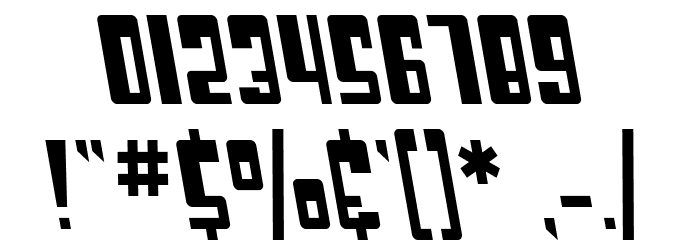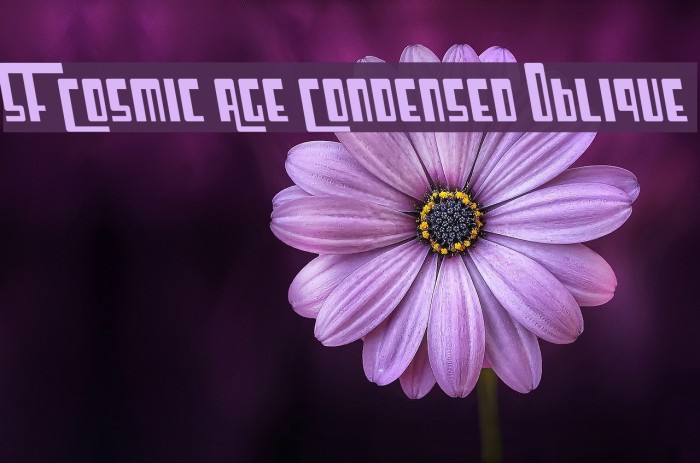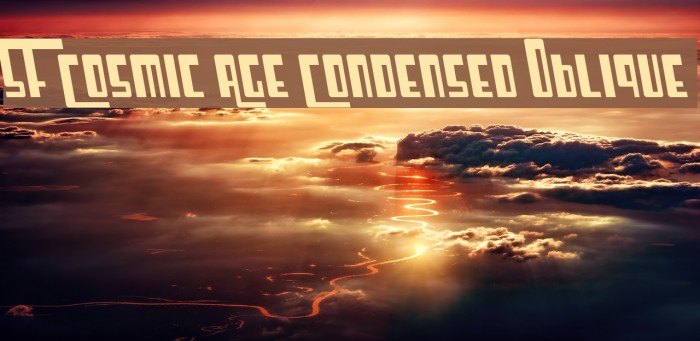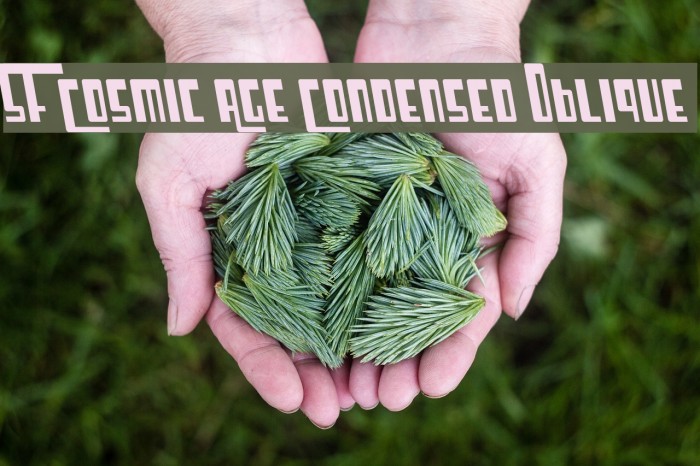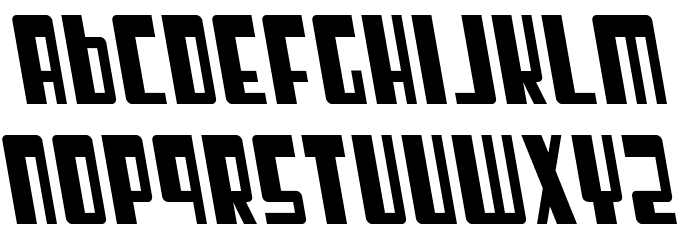
SF Cosmic Age Condensed Oblique Font
SF Cosmic Age Condensed Oblique Description
This font features a futuristic and geometric design with a condensed and oblique style. The characters are bold and angular, with a strong emphasis on vertical and horizontal lines. The uppercase and lowercase letters share a similar structure, creating a cohesive and uniform appearance. Numbers and special characters maintain the same stylistic elements, ensuring consistency across all glyphs. The overall look is modern and dynamic, suitable for projects that require a bold and impactful visual statement.
| Proposed Projects | Ideal for sci-fi themed designs, technology branding, video game interfaces, and modern posters. |